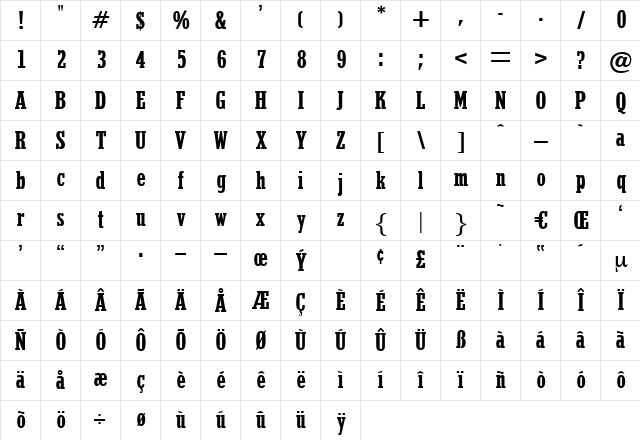
QuarterBold is a composed and adaptable typeface that performs quietly and consistently across a wide range of design contexts. Its bold stroke weight gives it real presence on the page.